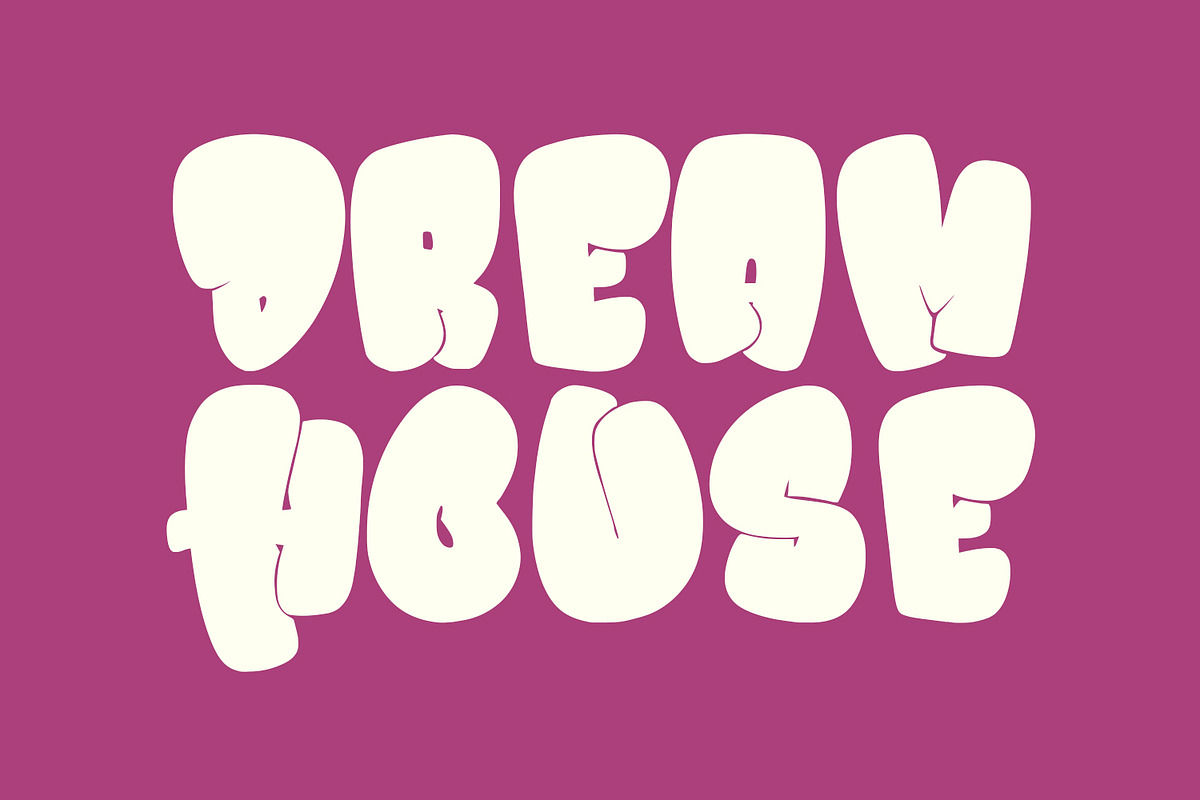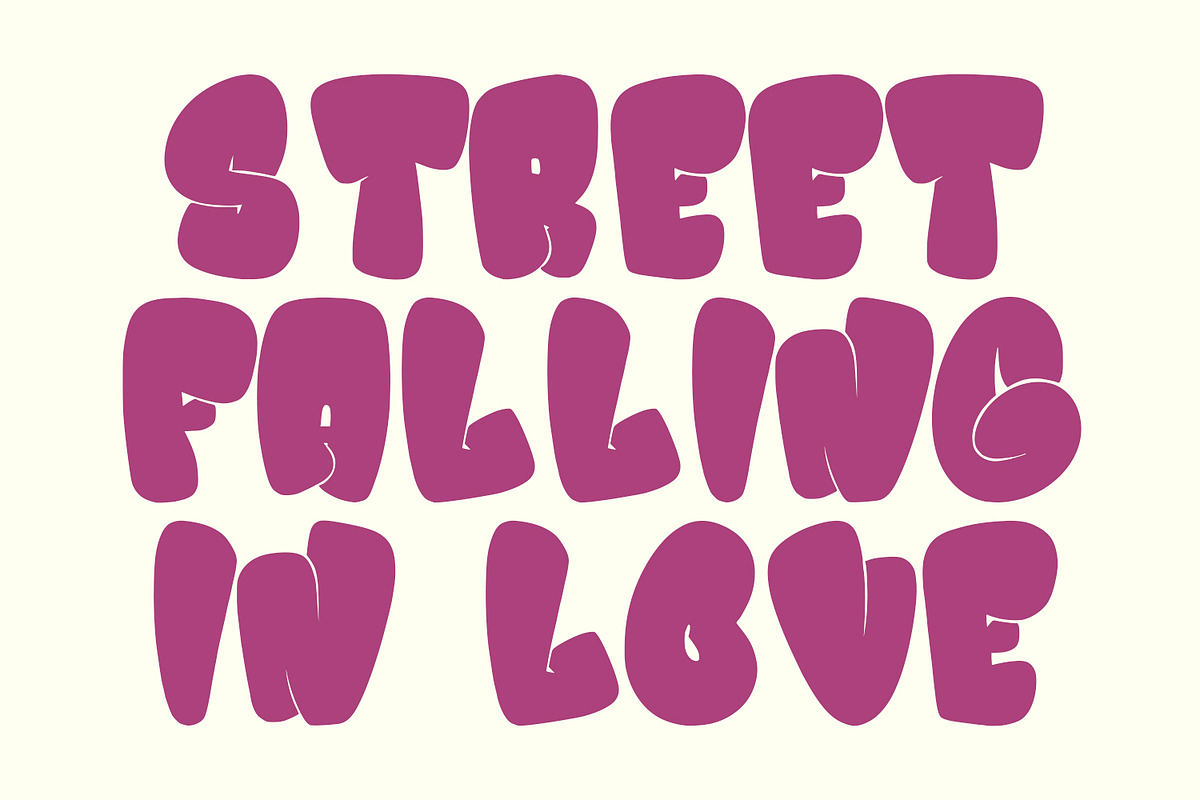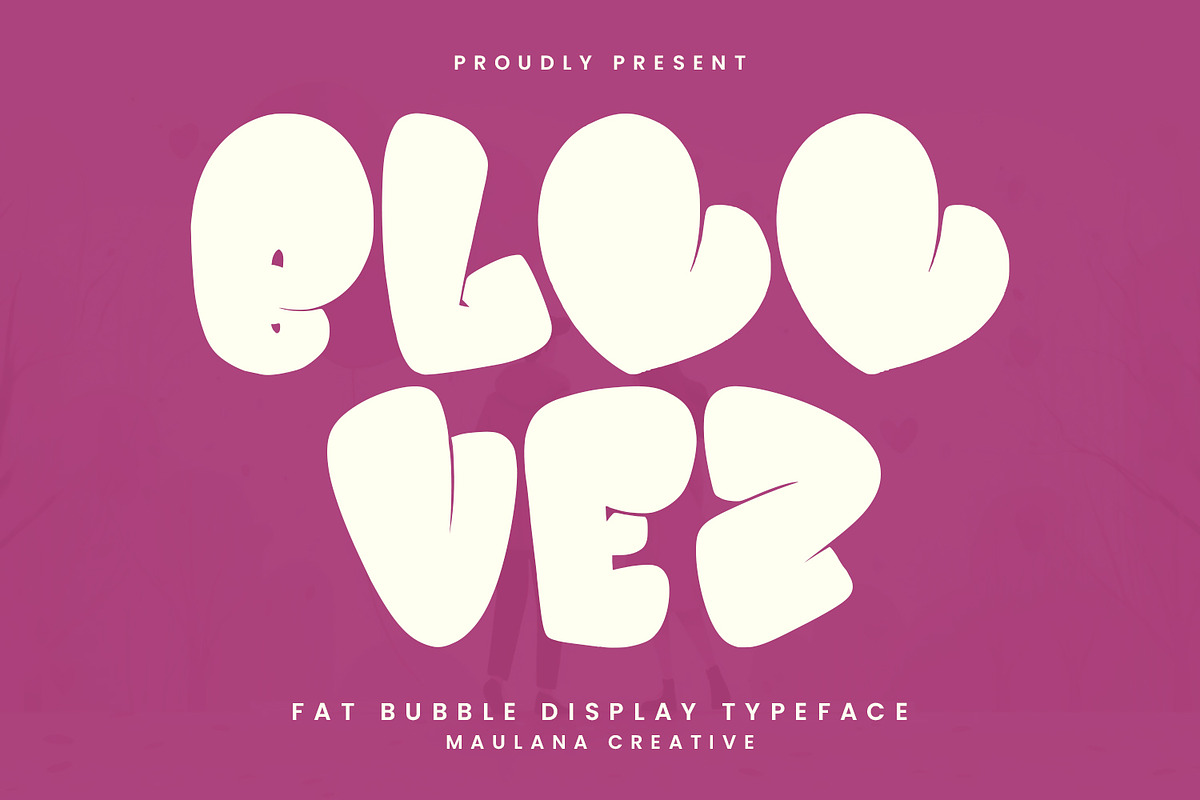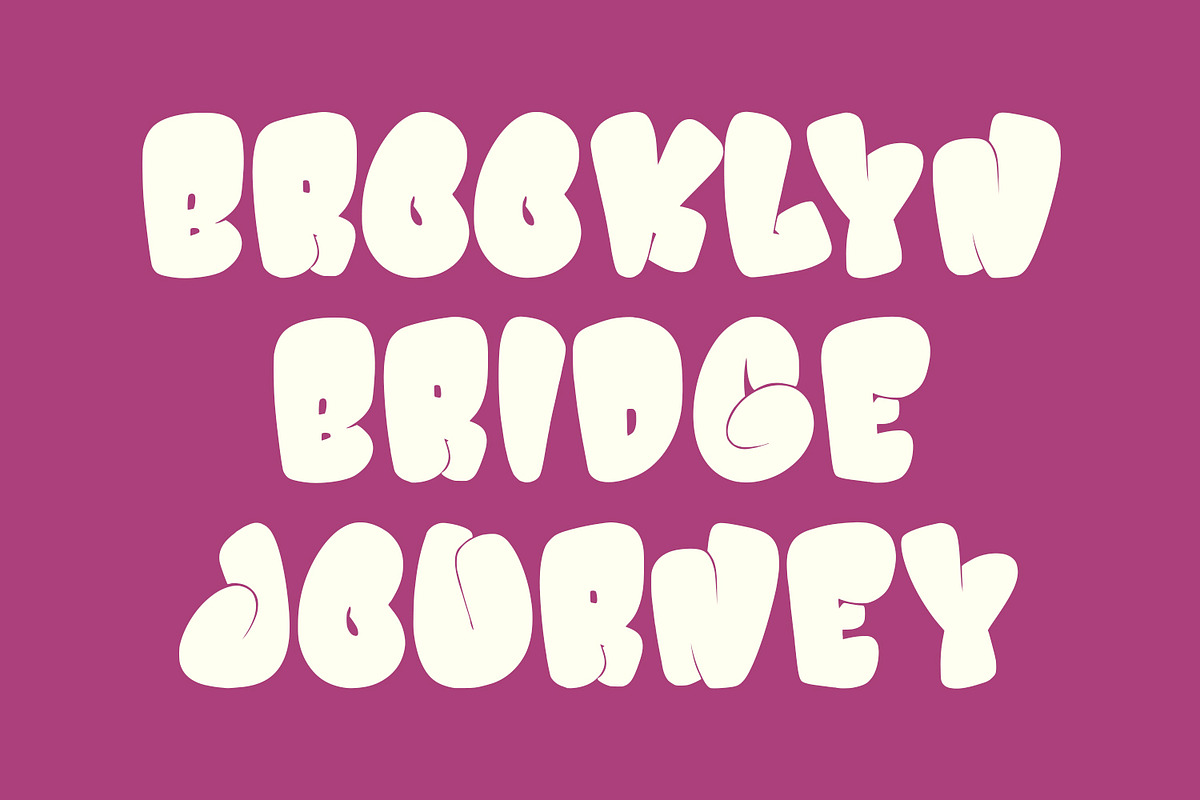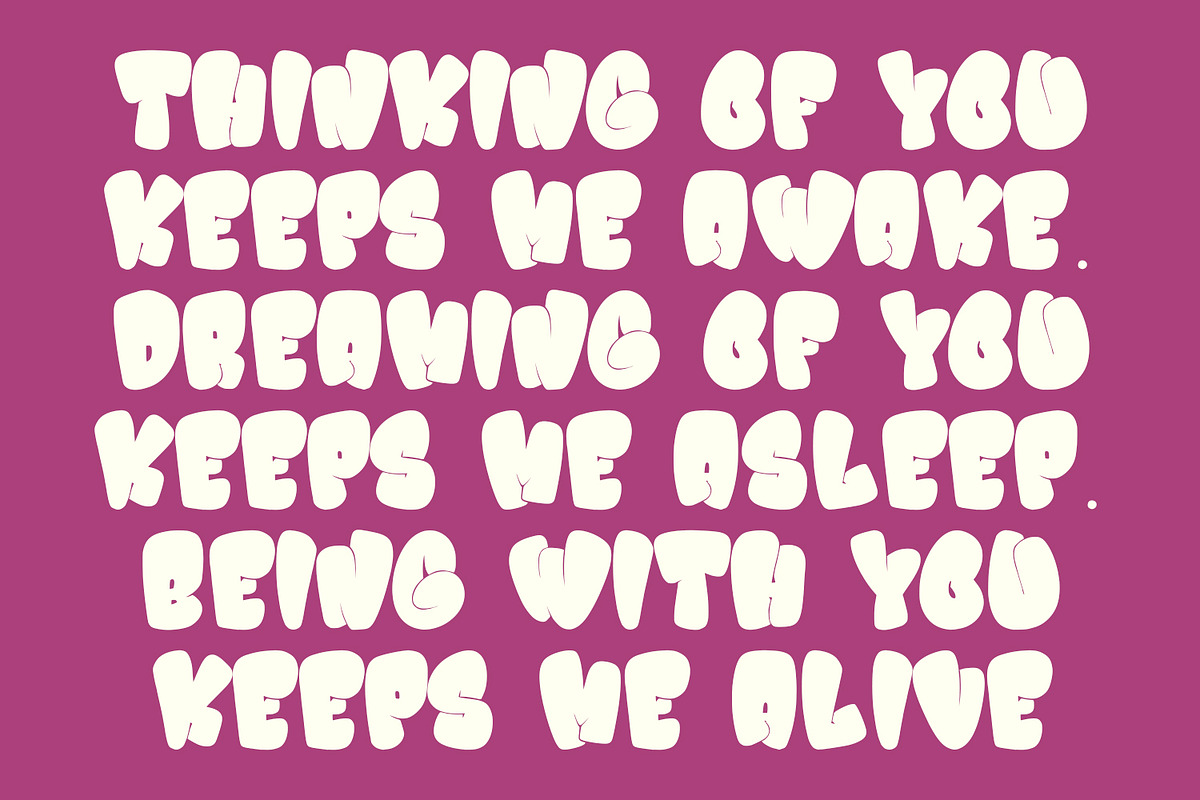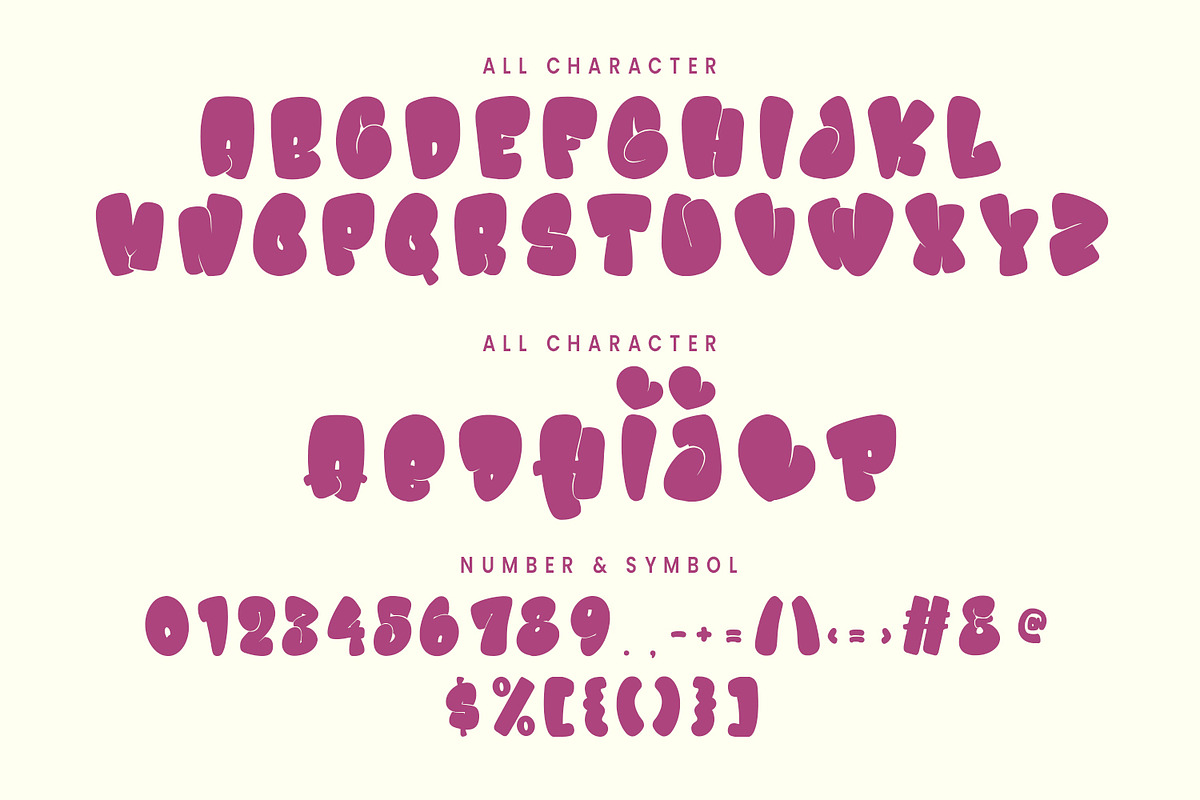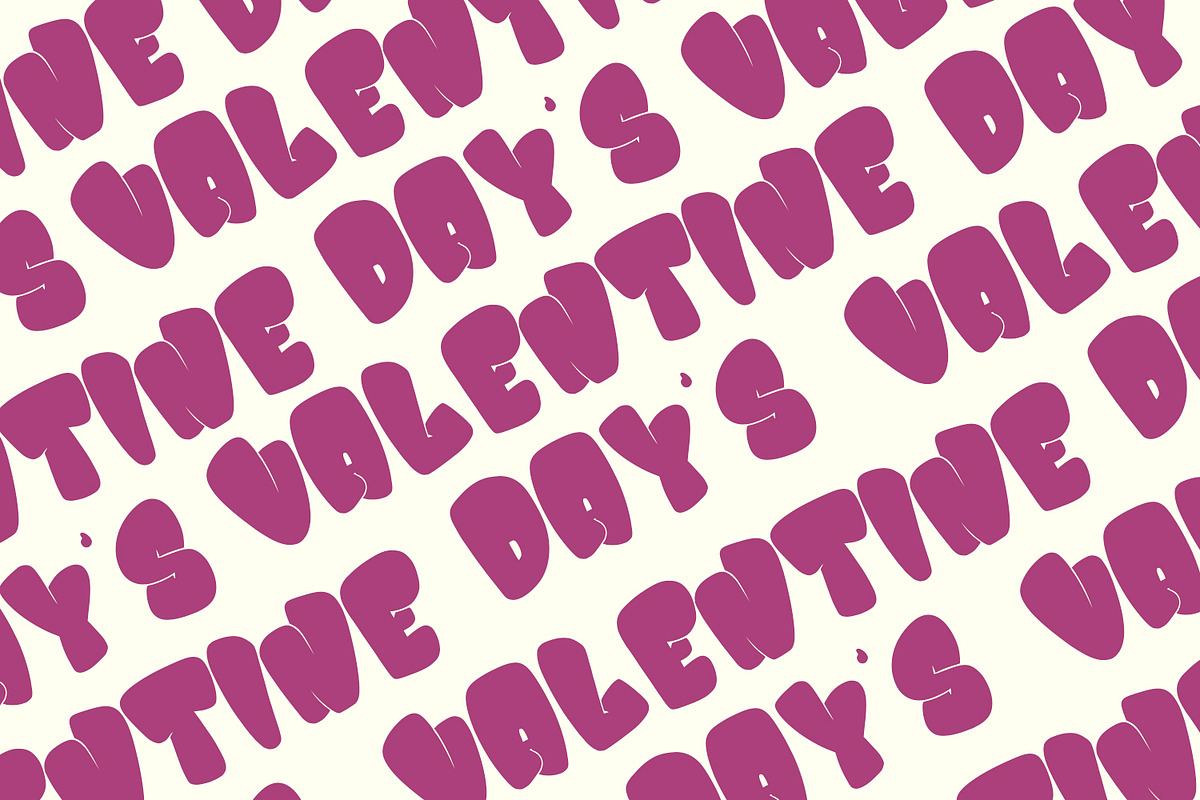
Bloovez Fat Bubble Valentine Font
Bloovez fat bubble display typeface valentine font. With sharp bold stroke, fun character with a bit of ligatures and alternates. To give you an extra creative work. Bloovez fat bubble display typeface valentine font support multilingual more than 100+ language. This font is good for logo design, Social media, Movie Titles, Books Titles, a short text even a long text letter and good for your secondary text font with script or serif. Make a stunning work with Bloovez fat bubble display typeface valentine font.